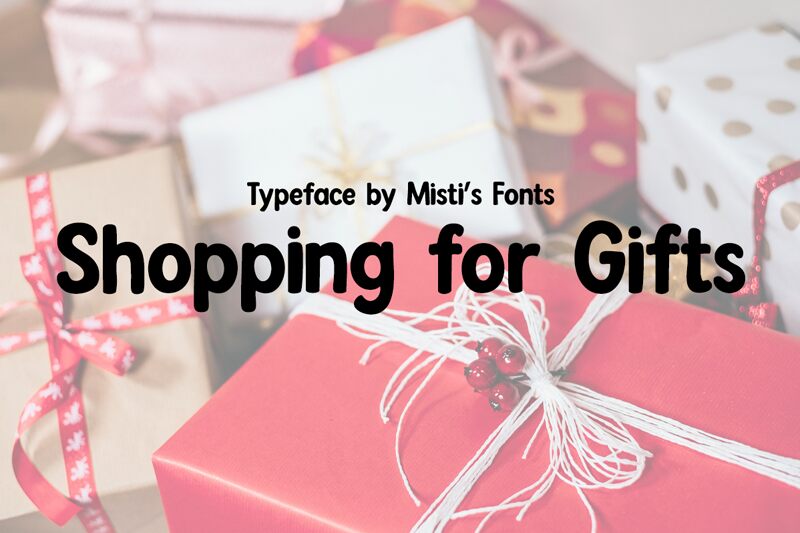
Shopping For Gifts font by Misti’s Fonts is a cheerful free fancy font with a very lively character. This fun and expressive letter set is all you need for designs that exemplify the Xmas and holiday spirit. Display messages that have a real impact on readers with attractive glyphs embellished by creative forms.
This charming typeface is a great choice for creative writing presentations for school children. You can also use it in coloring books, animated YouTube videos for kids, baby books, and posters. Adding to that, it will have a great impact when used in Christmas cards, branding, and signage.
Shopping for Gifts is a bold, playful handwritten font that features rounded shapes and a cozy charm. It is an excellent choice for Christmas designs, gift tags, cards, packaging, quotes, and festive projects that require a warm, fun, and friendly atmosphere.